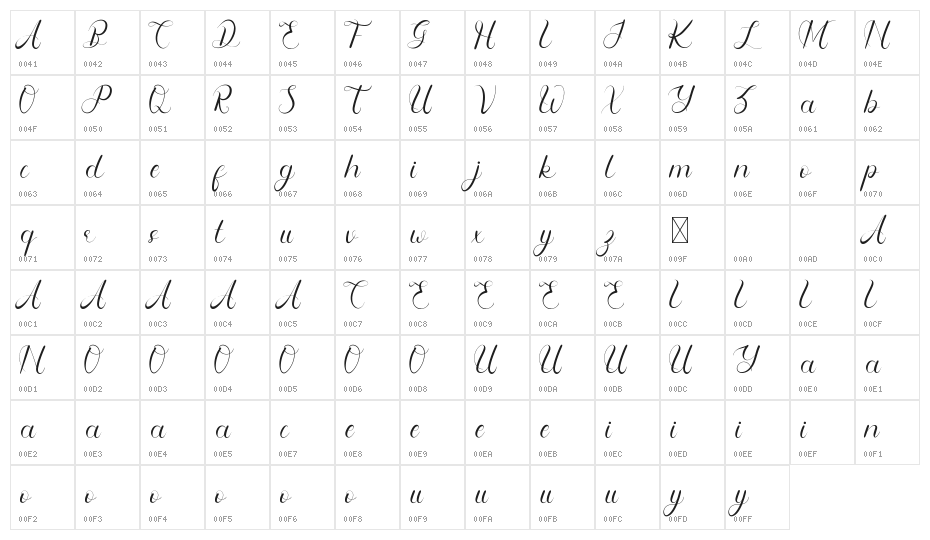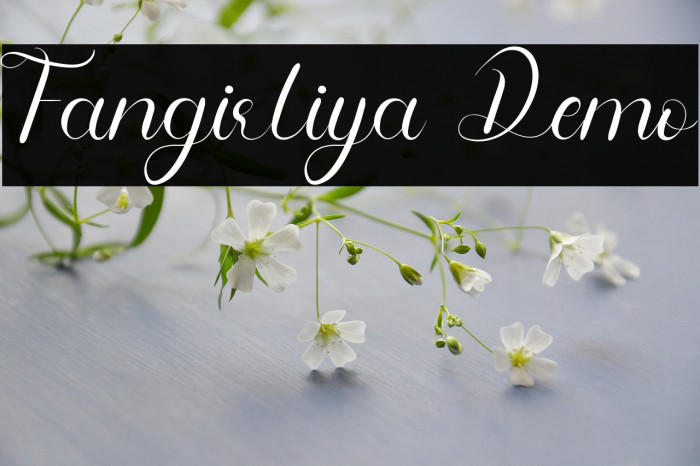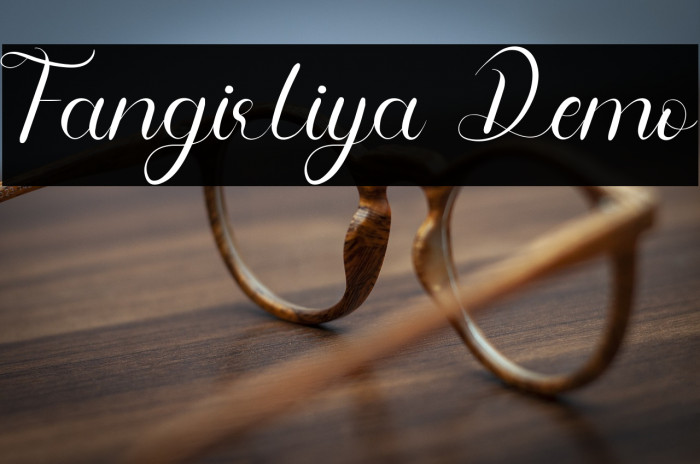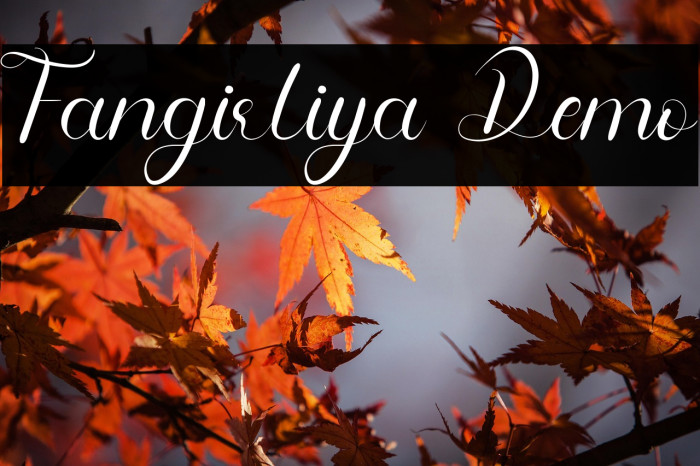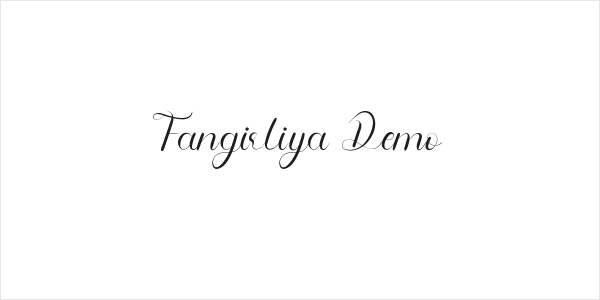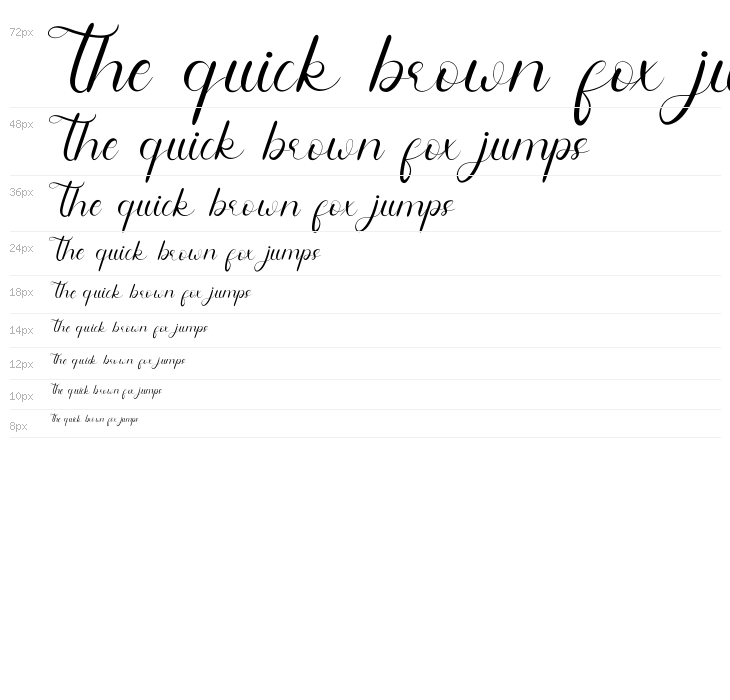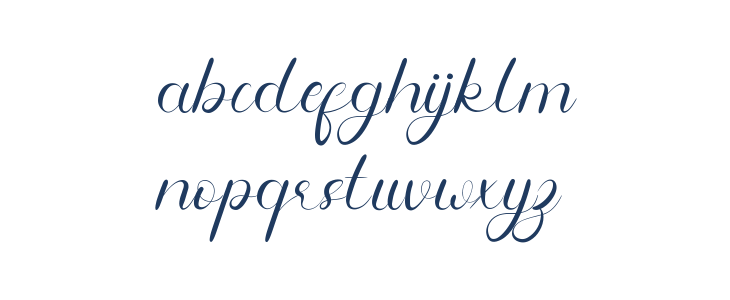
Fangirliya Demo Font
Fangirliya Demo Description
This elegant script font features a flowing, cursive style with intricate swashes and flourishes that give it a sophisticated and artistic appearance. The characters are connected, creating a seamless and fluid look that is both graceful and dynamic. The uppercase letters are particularly ornate, with elaborate loops and curves that add a touch of luxury and refinement. The lowercase letters maintain a consistent style, complementing the uppercase with their own subtle flourishes. This font is perfect for projects that require a touch of elegance and creativity, such as wedding invitations, branding, and high-end product packaging.
| Overall Style | Elegant, Artistic |
| Proposed Projects | Wedding invitations, branding, high-end product packaging, artistic designs. |